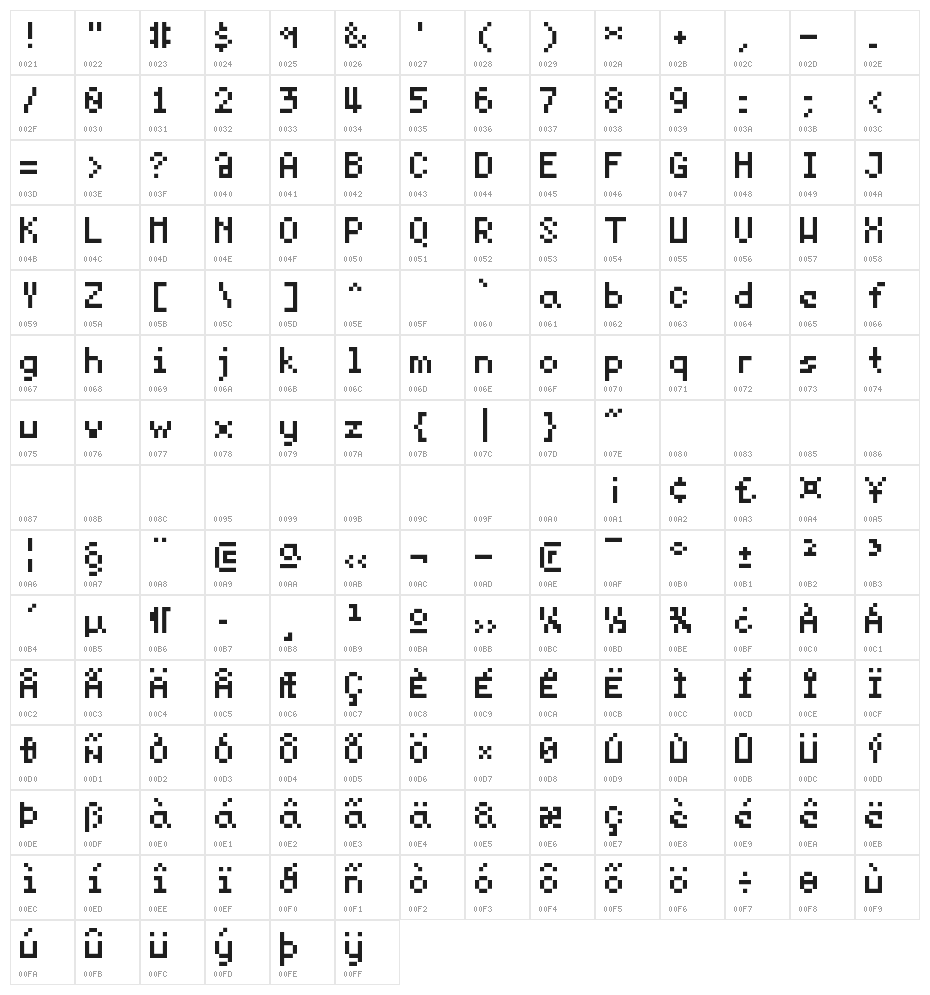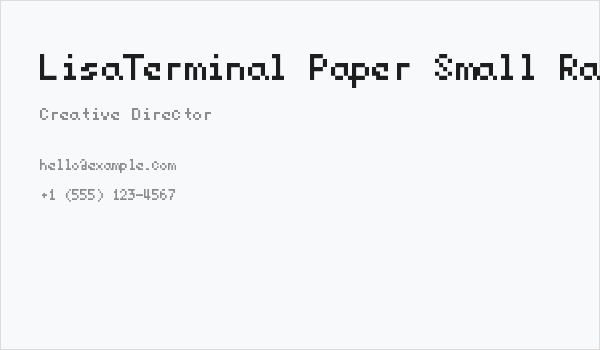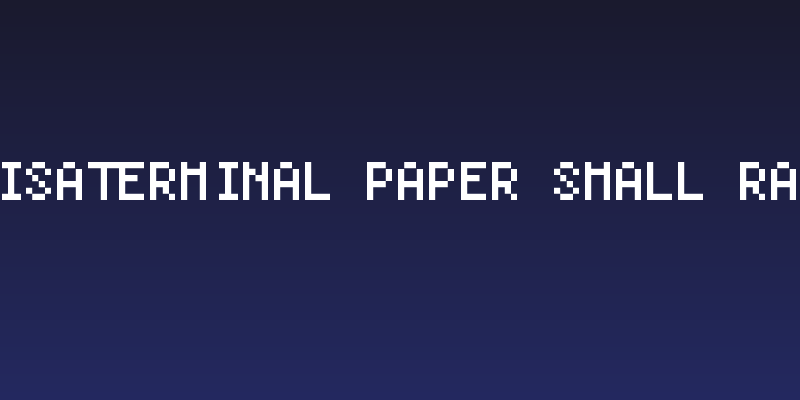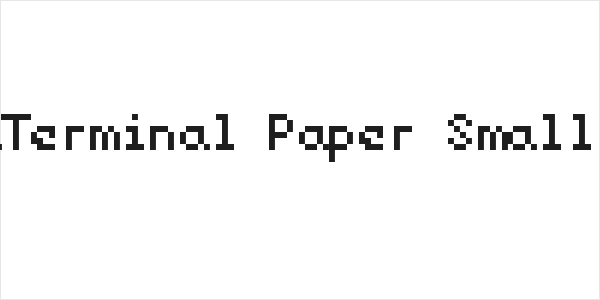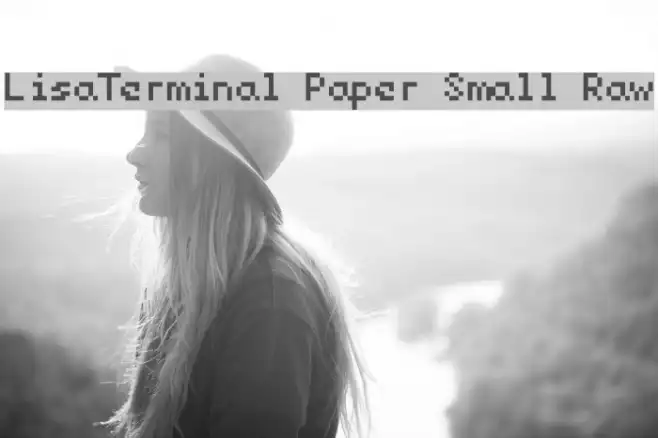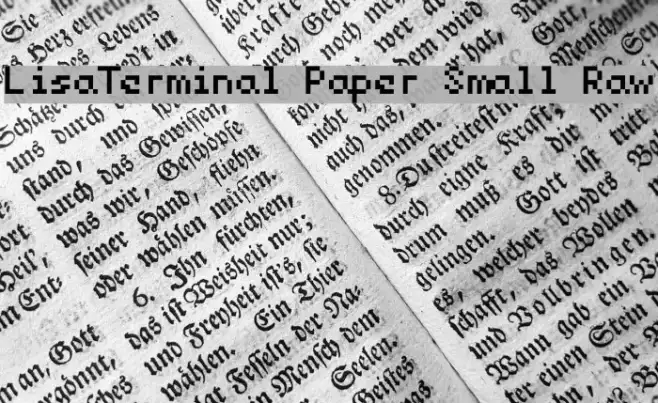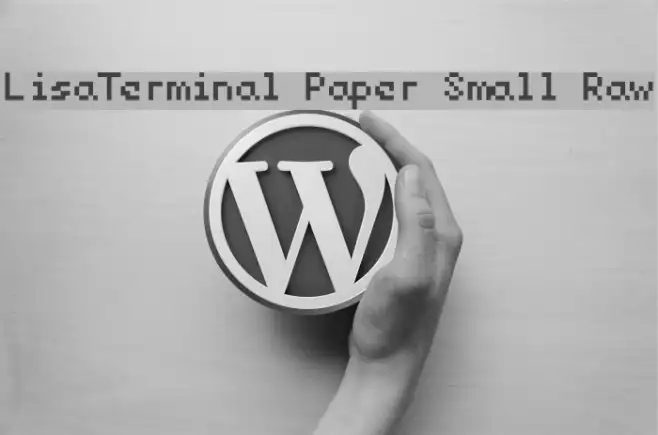
LisaTerminal Paper Small Raw Font
LisaTerminal Paper Small Raw Description
This font features a pixelated, monospaced design reminiscent of early computer and video game graphics. Each character is constructed with a grid-like precision, giving it a distinctly retro and digital appearance. The uniformity in character width ensures a consistent and orderly presentation, ideal for coding or digital-themed projects. The uppercase and lowercase letters maintain a blocky aesthetic, while the numerals and special characters are crafted with the same pixelated style, enhancing the overall cohesive look. This font's nostalgic charm makes it perfect for projects that aim to evoke a sense of vintage computing or retro gaming.
| Use Case | Logos, Digital art, Coding interfaces |
| Proposed Projects | Ideal for retro video games, coding interfaces, digital art projects, and nostalgic branding. |